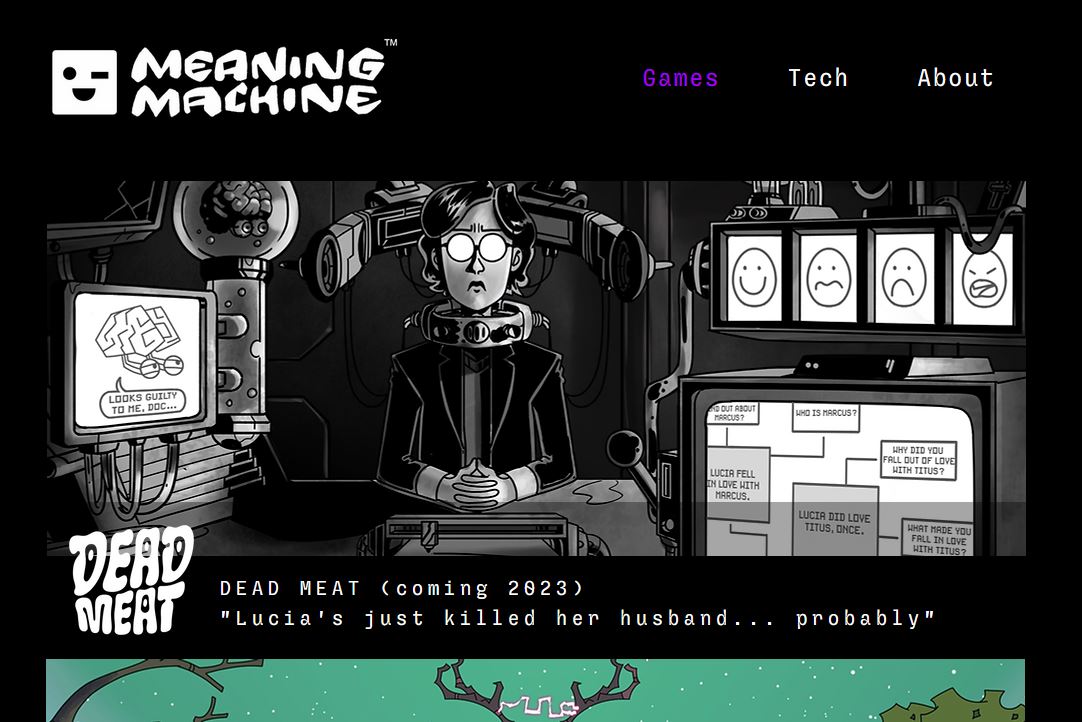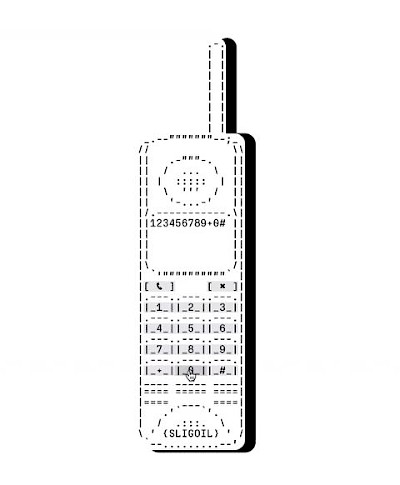
Sligoil is a funky monospace typeface with large inktraps. Sligoil was created originally for the interface of an indie videogame called Unknown Number, published by Godolphin Games. "Sligoil" is also the name of a (fictional) evil company within the game. Cheers!